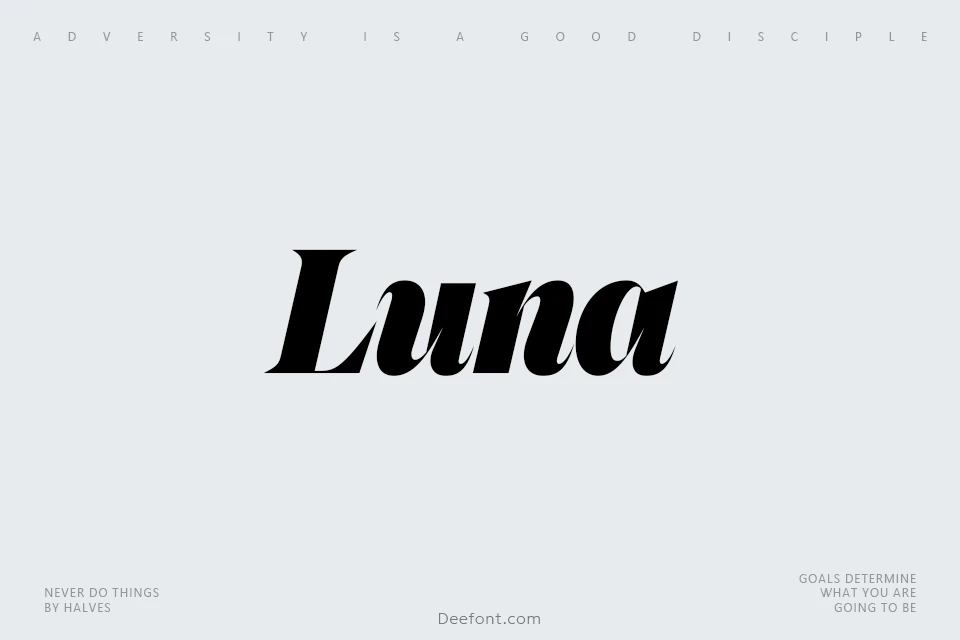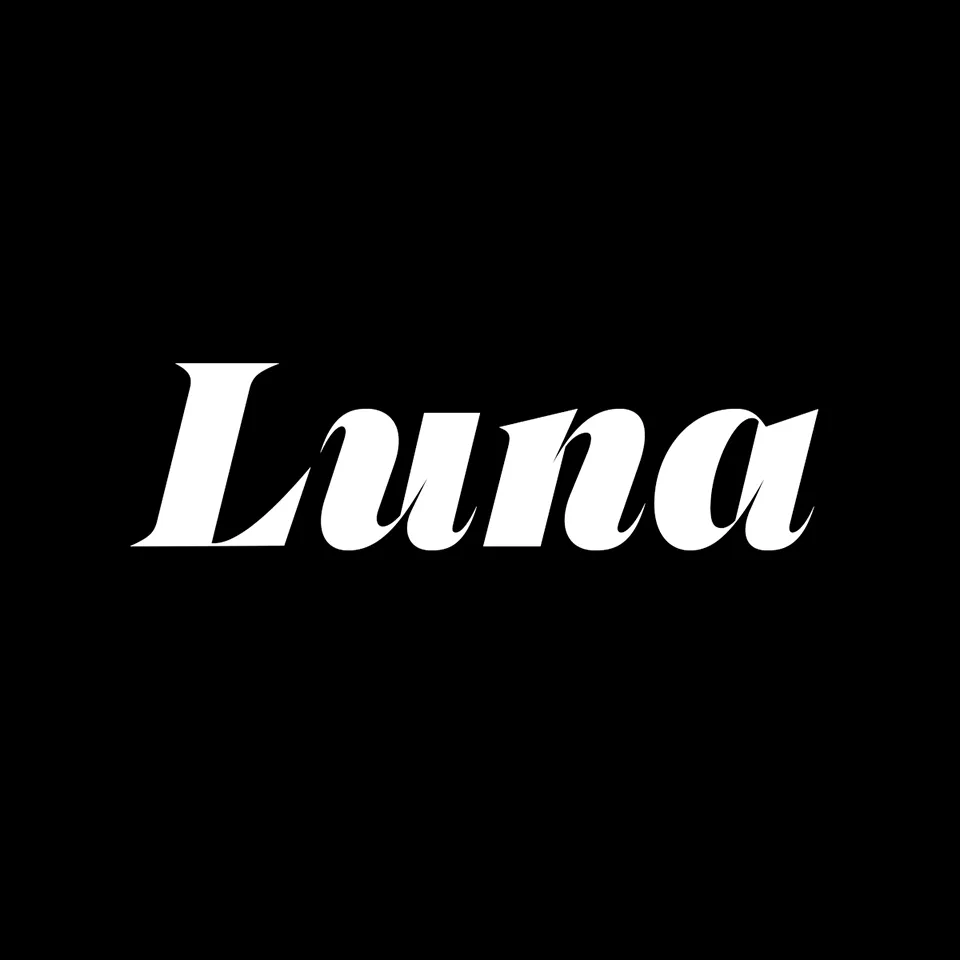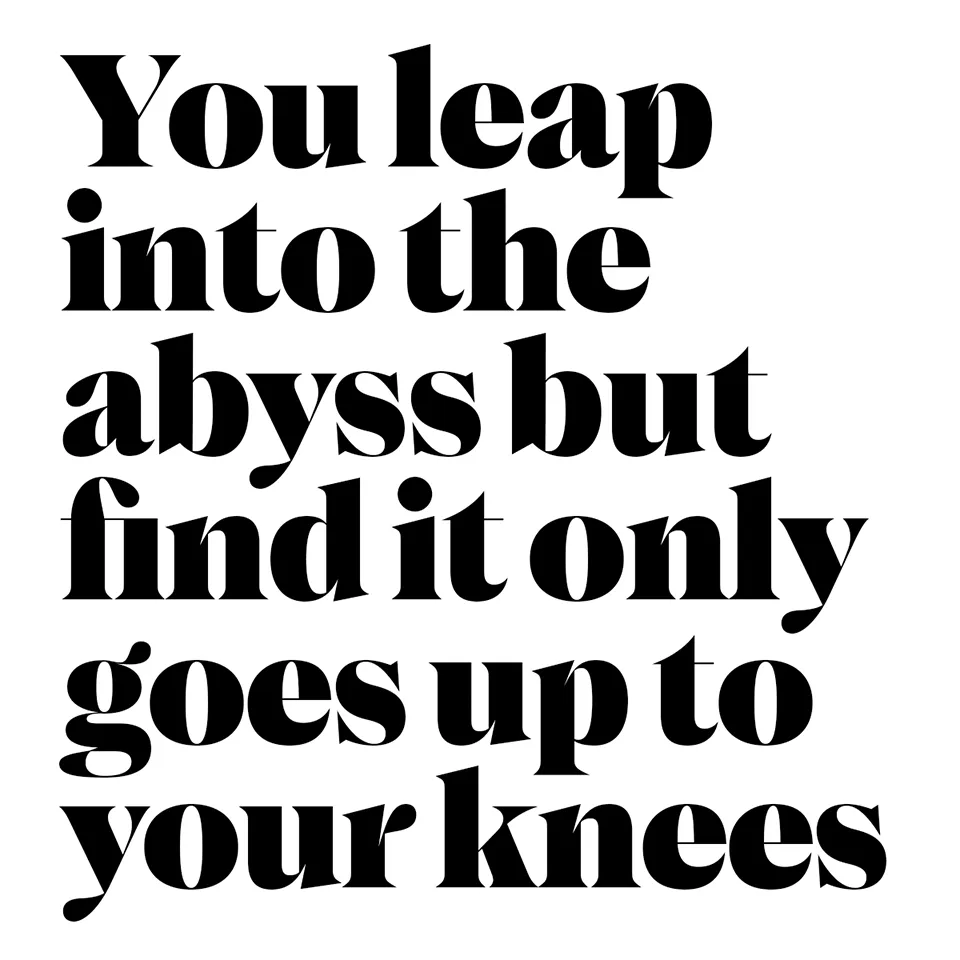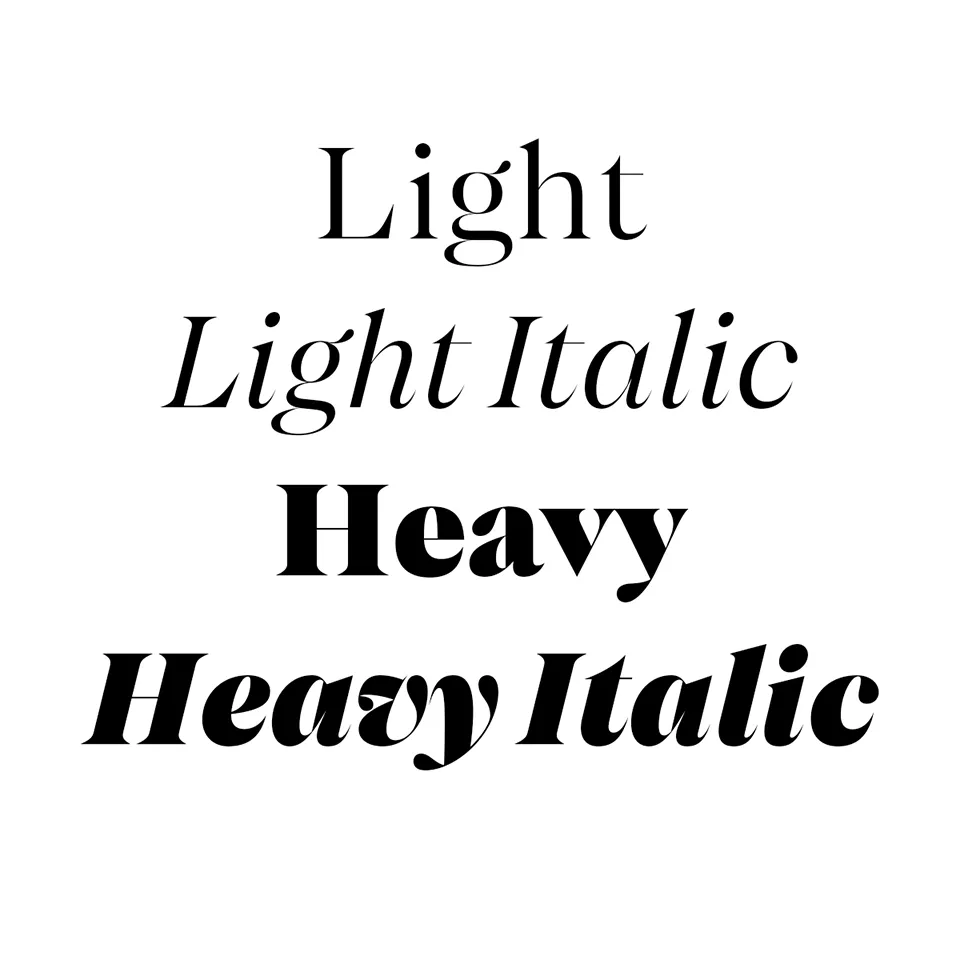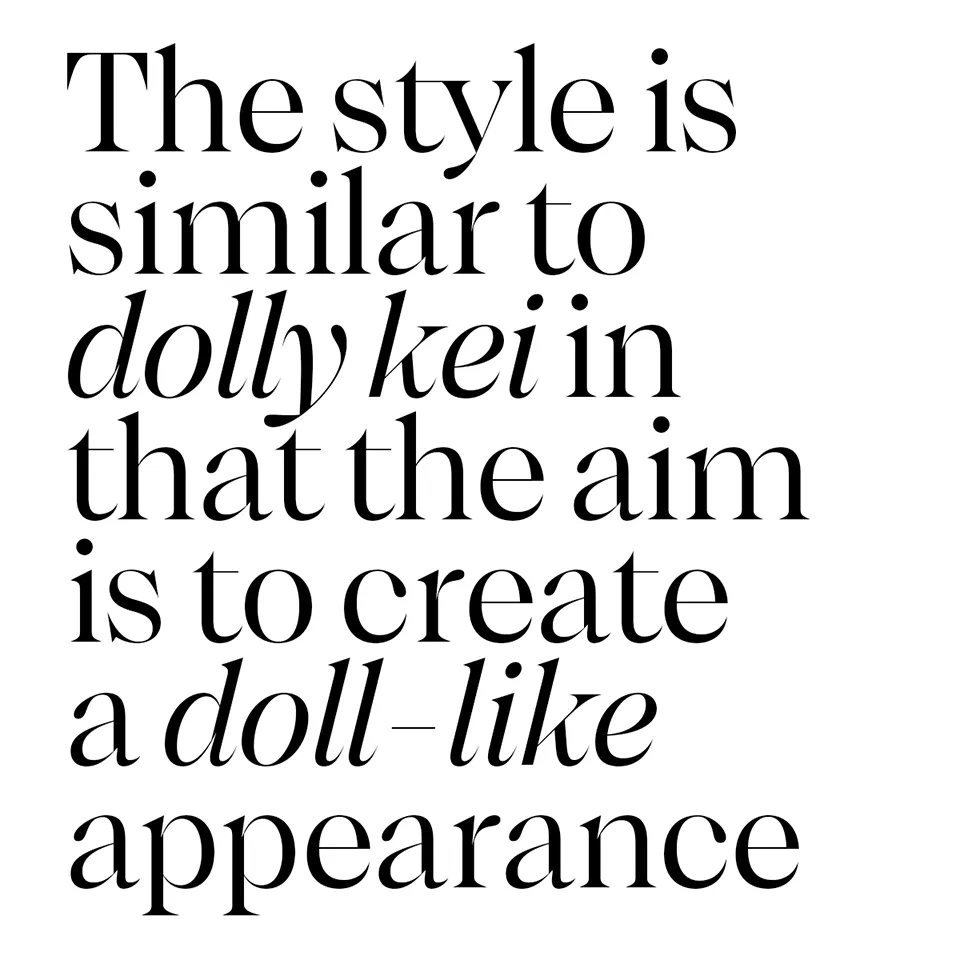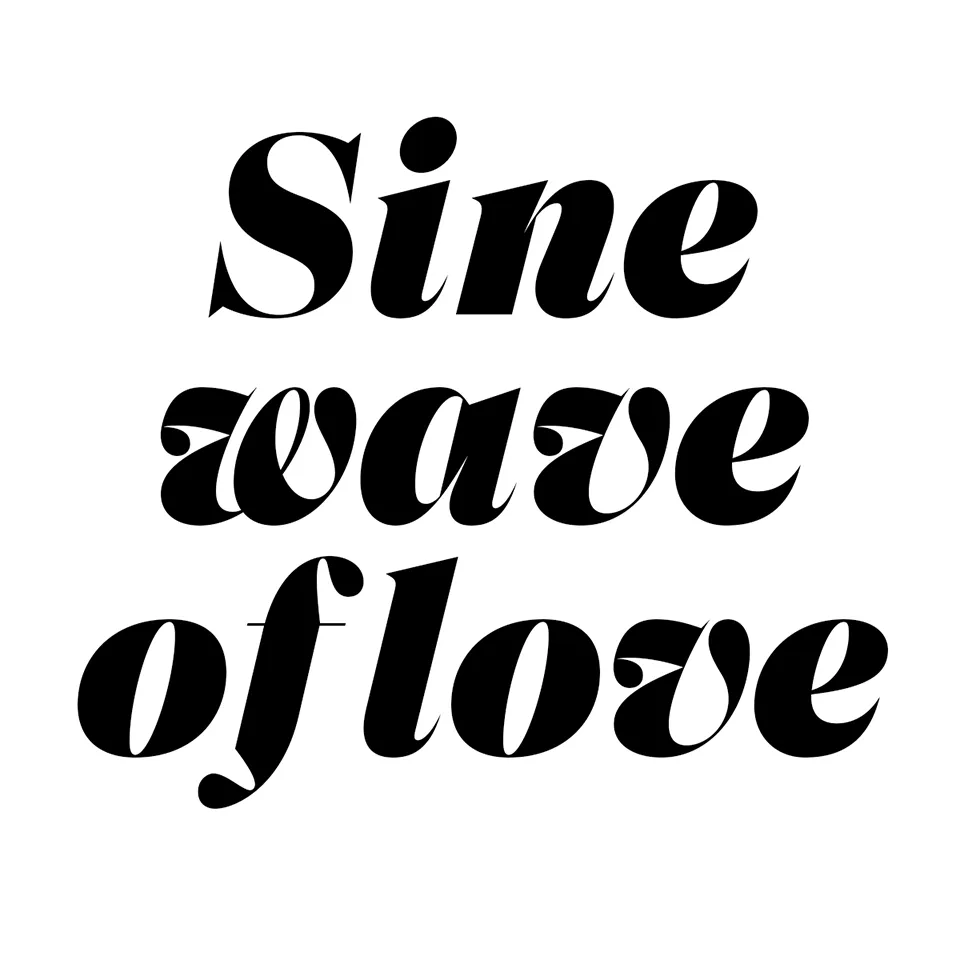
Luna Serif Font Family
Luna Serif Font Family is a classic serif font family with high contrast, inspired by contemporary typefaces. Its unique, occasionally peculiar shapes lend it both personality and elegance, making it ideal for bold display typography. The font features four styles-Light, Heavy, and their italics-with support for Western European languages, complete punctuation, and most symbols. Luna’s eye-catching details and super high contrast are perfect for projects seeking sophistication and visual impact.